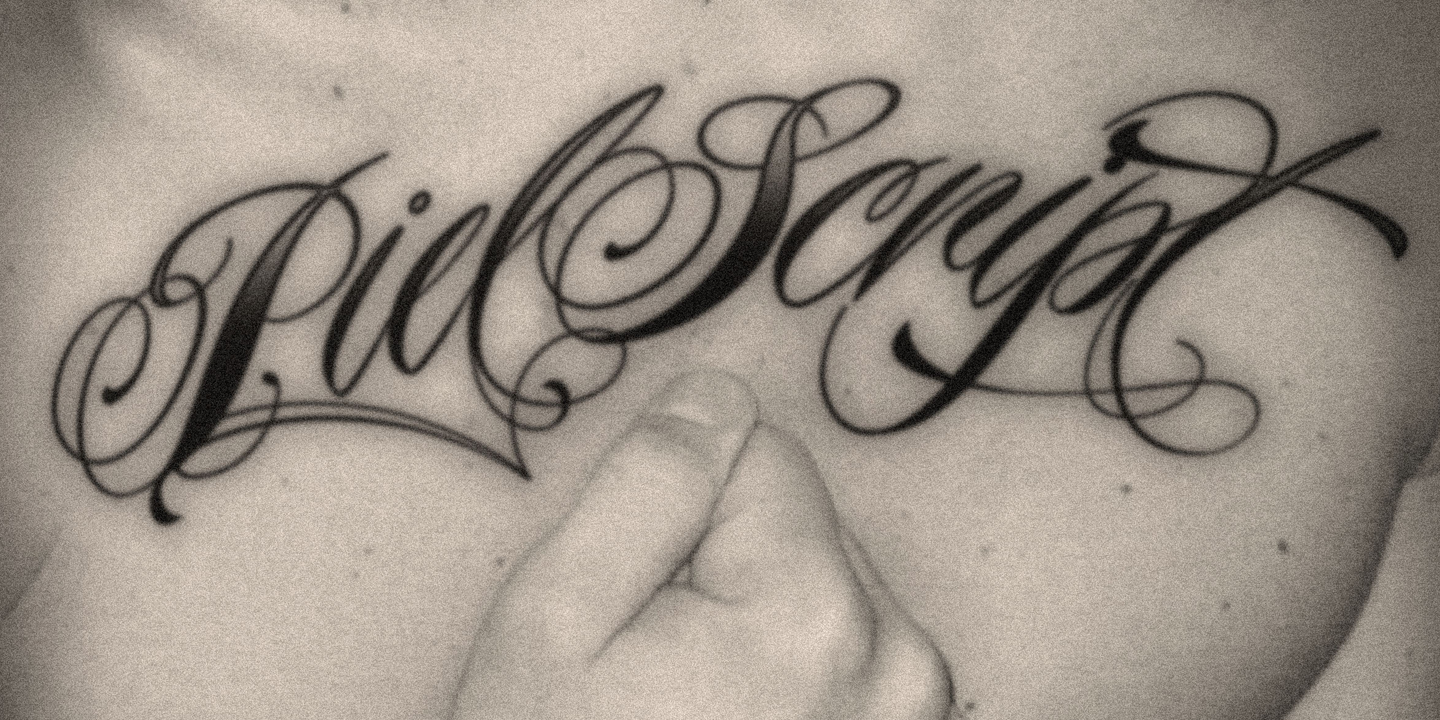
Piel Script Font is a beautifully flowing and elegant typeface, perfect for designs that aim to convey a sense of sophistication, personal touch, or a delicate handcrafted aesthetic. Its graceful strokes, connected letters, and refined flourishes make it an excellent choice for wedding invitations, luxury branding, calligraphic logos, and high-end product packaging. Imagine it gracing the stationery for a boutique hotel, adding an air of refined beauty to a fine dining menu, or providing a sophisticated touch to fashion brand collateral. This font is also superb for greeting cards, certificates and awards, and any project where elegance, authenticity, and an aesthetically pleasing visual identity are key. It doesn't just display text; it signs off with a flourish, adding an intimate and inviting feel to your message.
What makes Piel Script Font so exciting is its remarkable ability to capture the artistry and fluidity of genuine hand-lettering. It possesses a distinctive charm that feels both classic and expressive, creating a unique visual appeal that stands out from more rigid typefaces. This characteristic makes it a fantastic choice for designers looking to infuse their projects with a sense of refined artistry and personal warmth. It’s a font that speaks with a soft, elegant voice, making it ideal for brands and content creators who want to convey a message of beauty, authenticity, and refined taste. Its captivating appeal can make any design feel more personal and delightfully upscale.
The Piel Script Font family, given its artistic and script-inspired nature, might not feature the extensive range of weights found in more utilitarian typefaces. However, it typically offers different styles or complementary elements that enhance its unique aesthetic and provide creative flexibility. You might find variations such as:
• Piel Script Regular (the primary elegant script style)
• Piel Script Bold (for added emphasis while maintaining the script flow)
• Piel Script Alternates (additional stylistic characters or ligatures for more natural flow and variations)
• Piel Script Swashes/Ornaments (decorative flourishes that can be added to letters or as separate elements)
These variations empower designers to maintain a consistent thematic aesthetic while adding depth and personalized flair to their compositions. The availability of Piel Script Font Free Download offers an excellent opportunity to explore its unique charm and expressive potential for your personal design ventures.